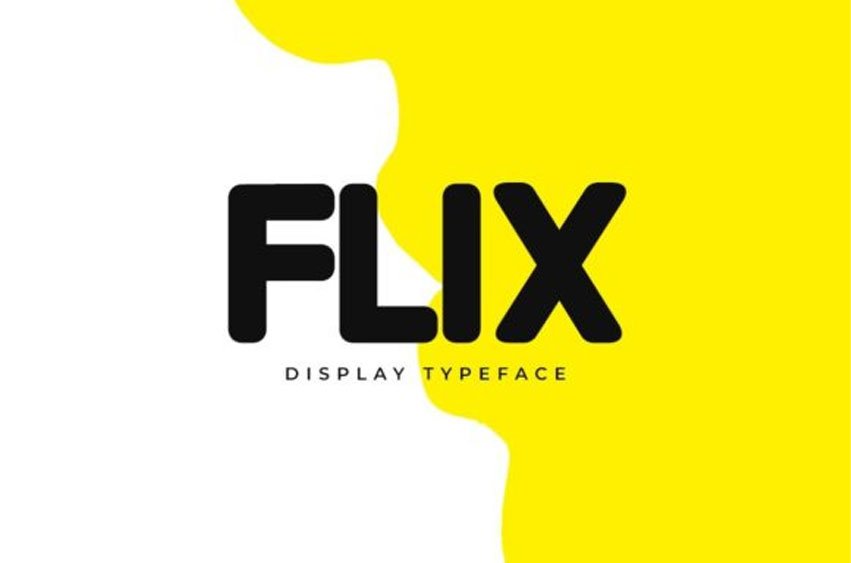
Flix Font is a clean, thick lettered and modern display font.
Add this minimalist and techno styled font to your web designs, logos or pretty much anything that requires a smart, cool touch.